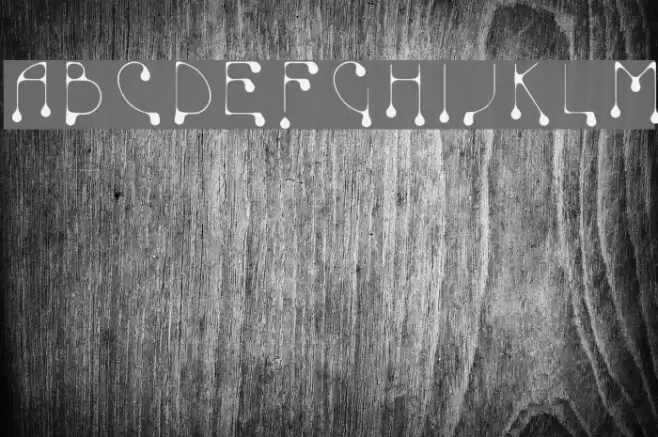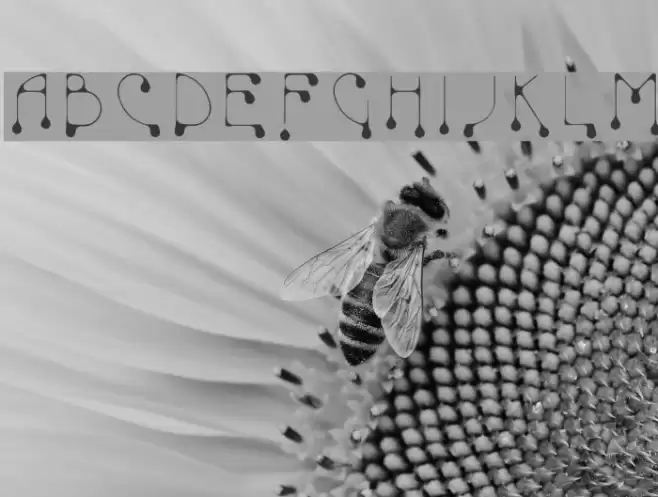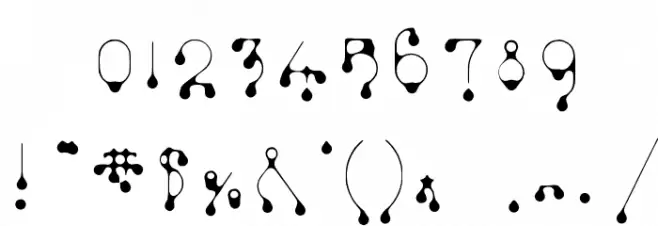
SkinnyDrip Font
SkinnyDrip Description
This font features a unique and artistic design, characterized by its thin, elongated strokes that end in bold, rounded droplets. The combination of delicate lines and pronounced terminals creates a striking contrast, giving the font a modern and playful appearance. Each character maintains a consistent style, with a whimsical touch that makes it stand out. The uppercase and lowercase letters share a cohesive design, while the numerals and special characters complement the overall aesthetic. This font's distinctive style is perfect for creative projects that require a touch of originality and flair.
A modern, artistic font with thin strokes ending in bold droplets from Valentine fonts.
- Proposed Projects: Ideal for branding, posters, album covers, and creative digital artwork.
- Use Case: Logos, Headlines, Artistic projects